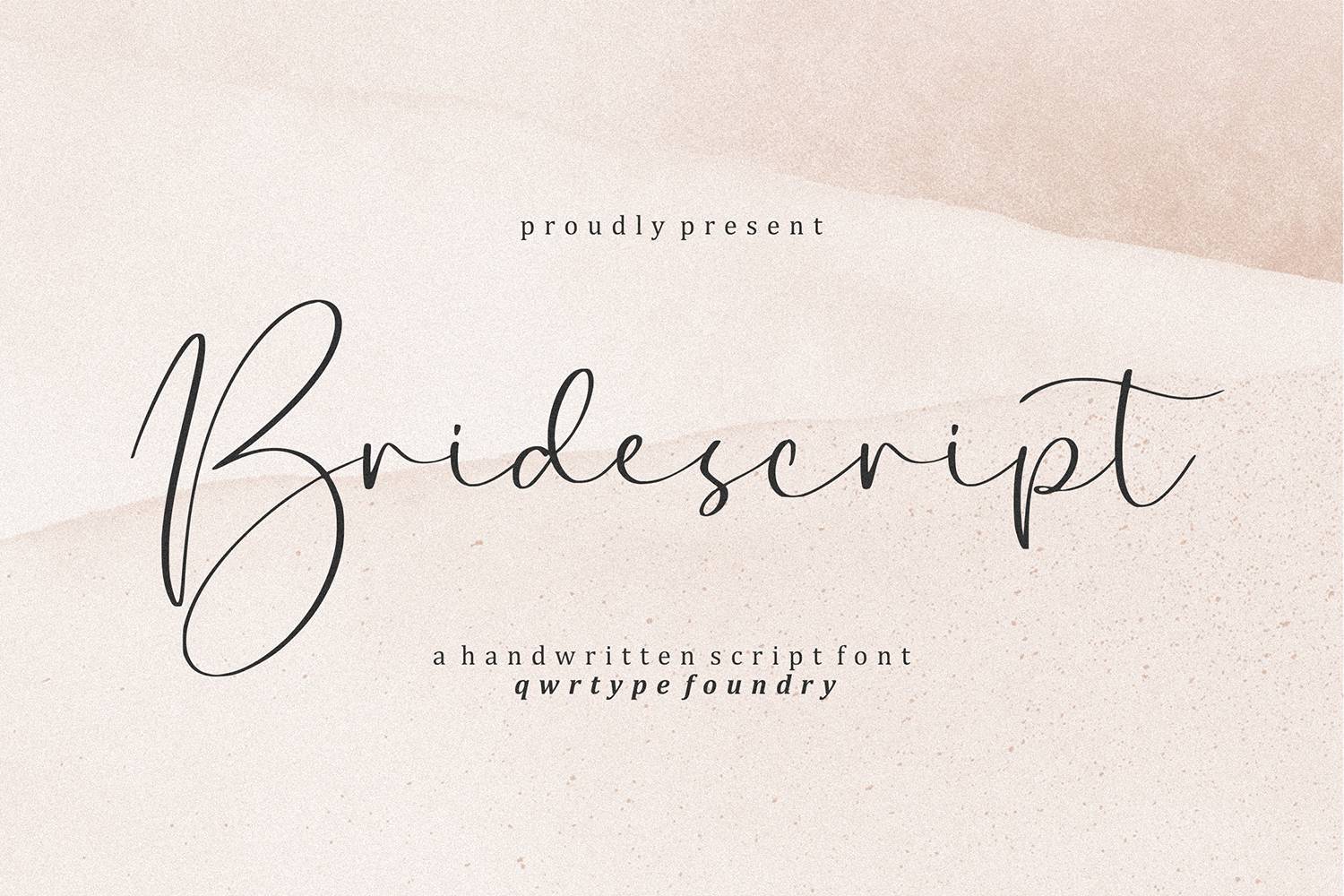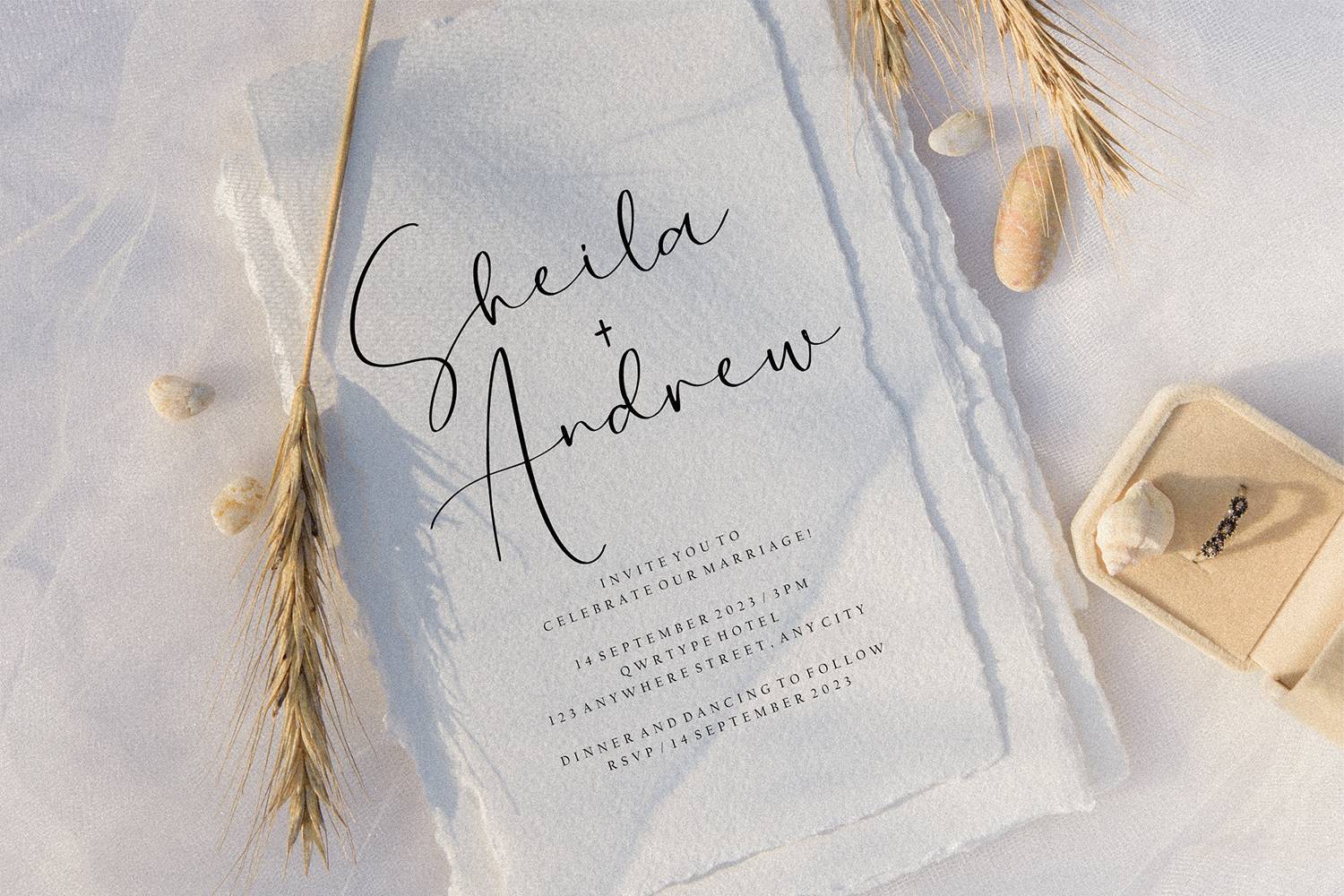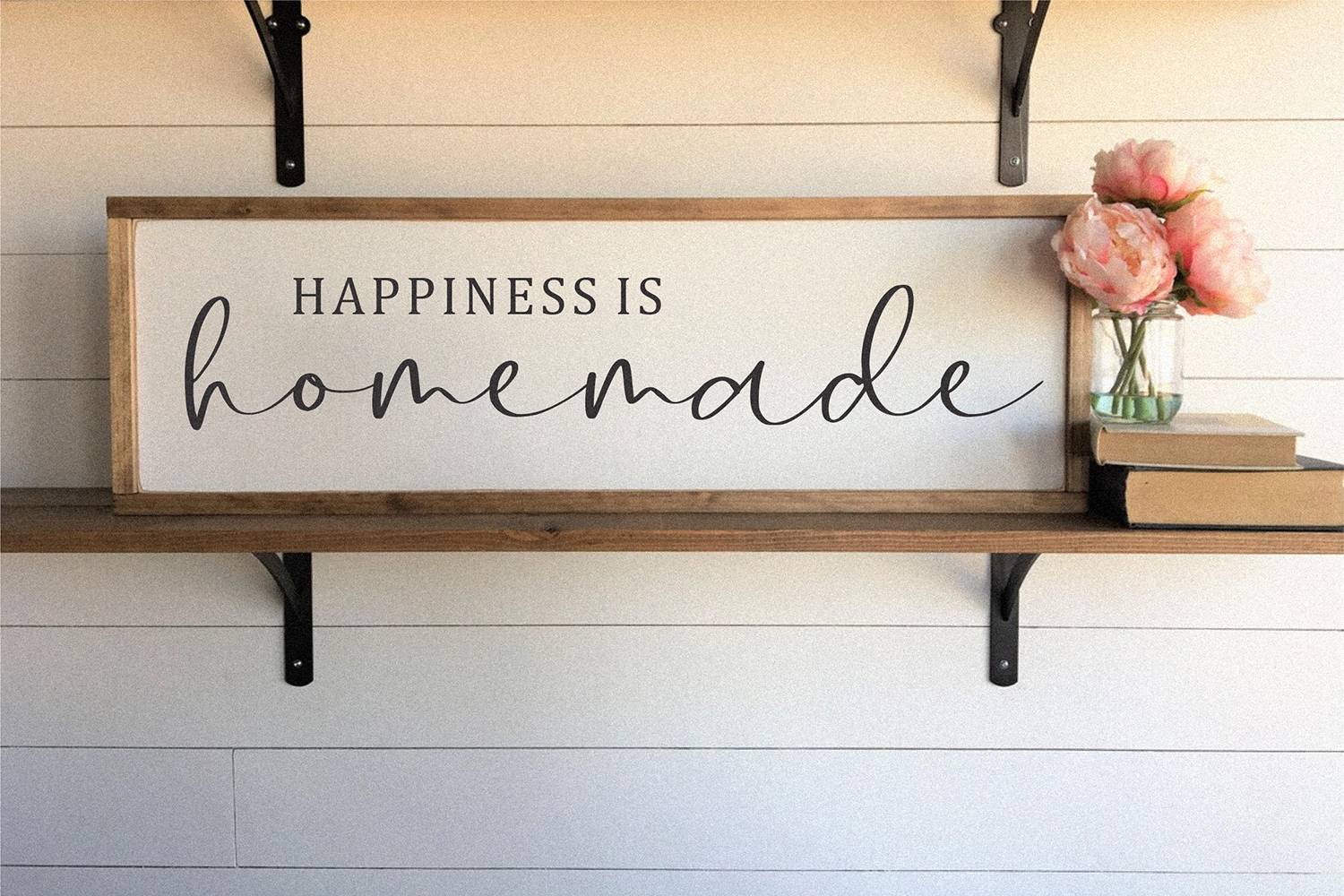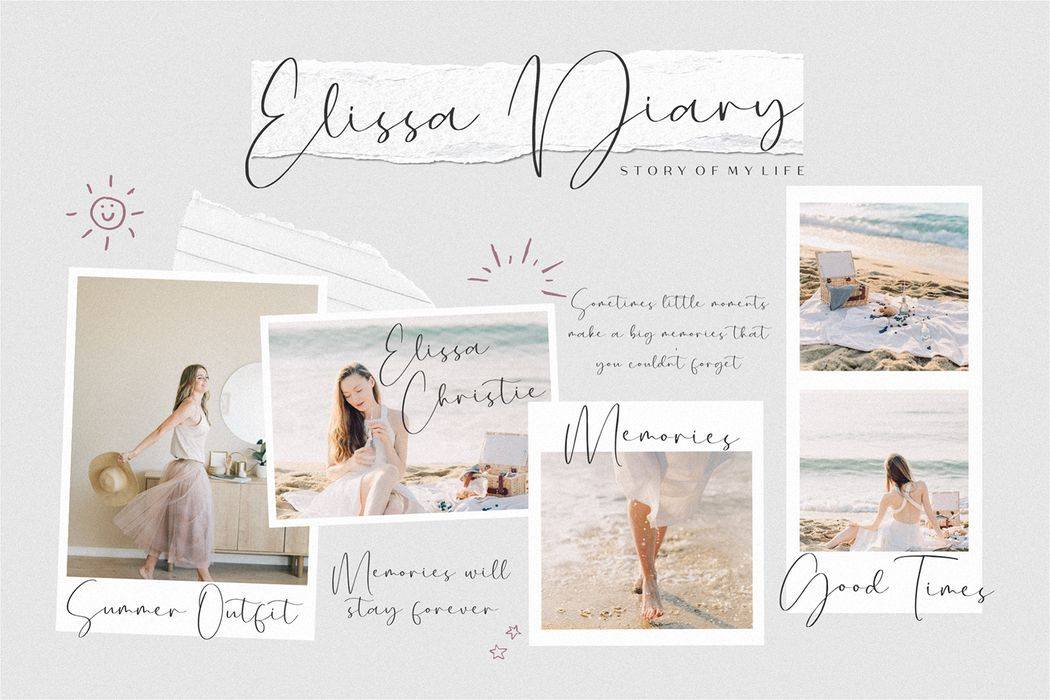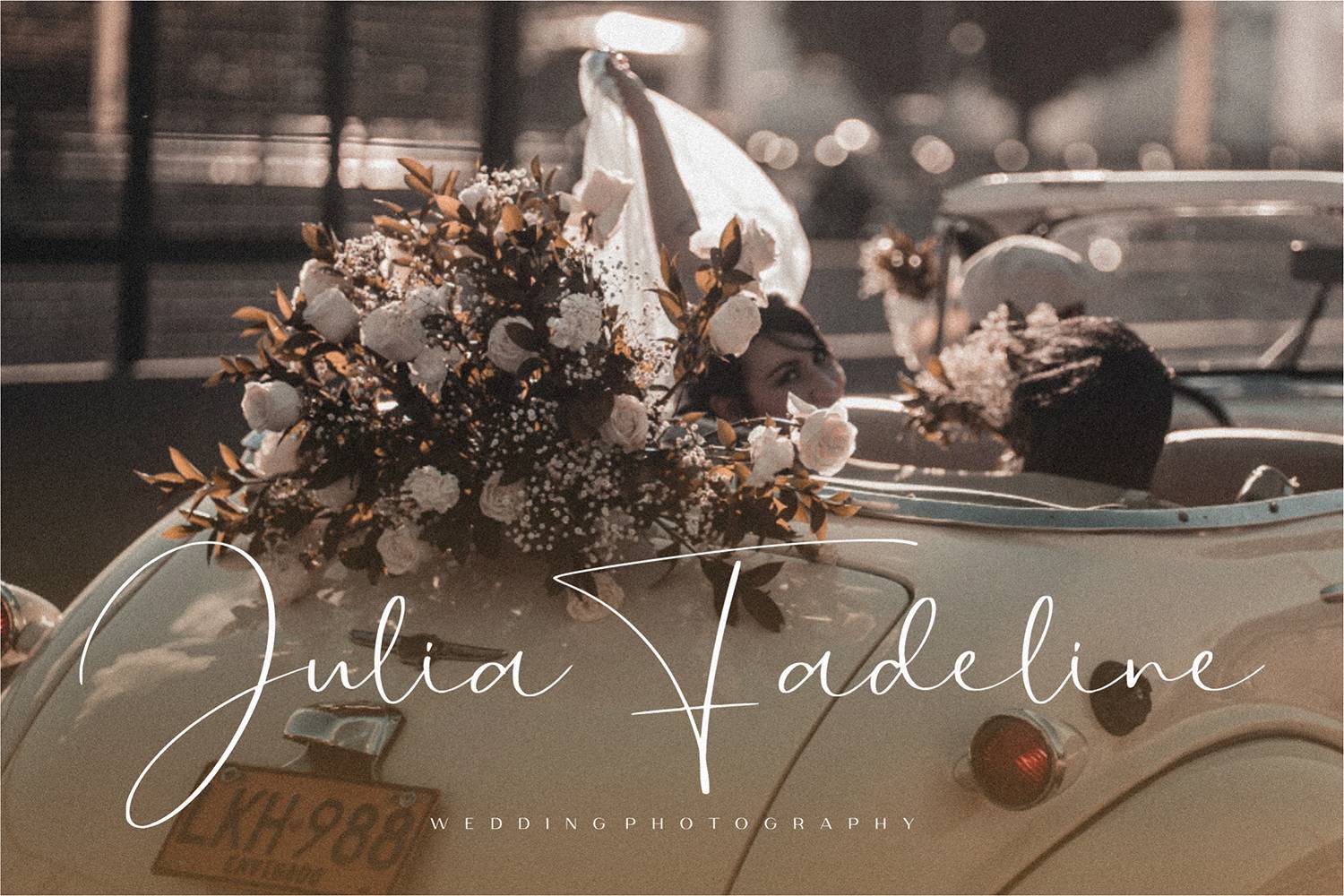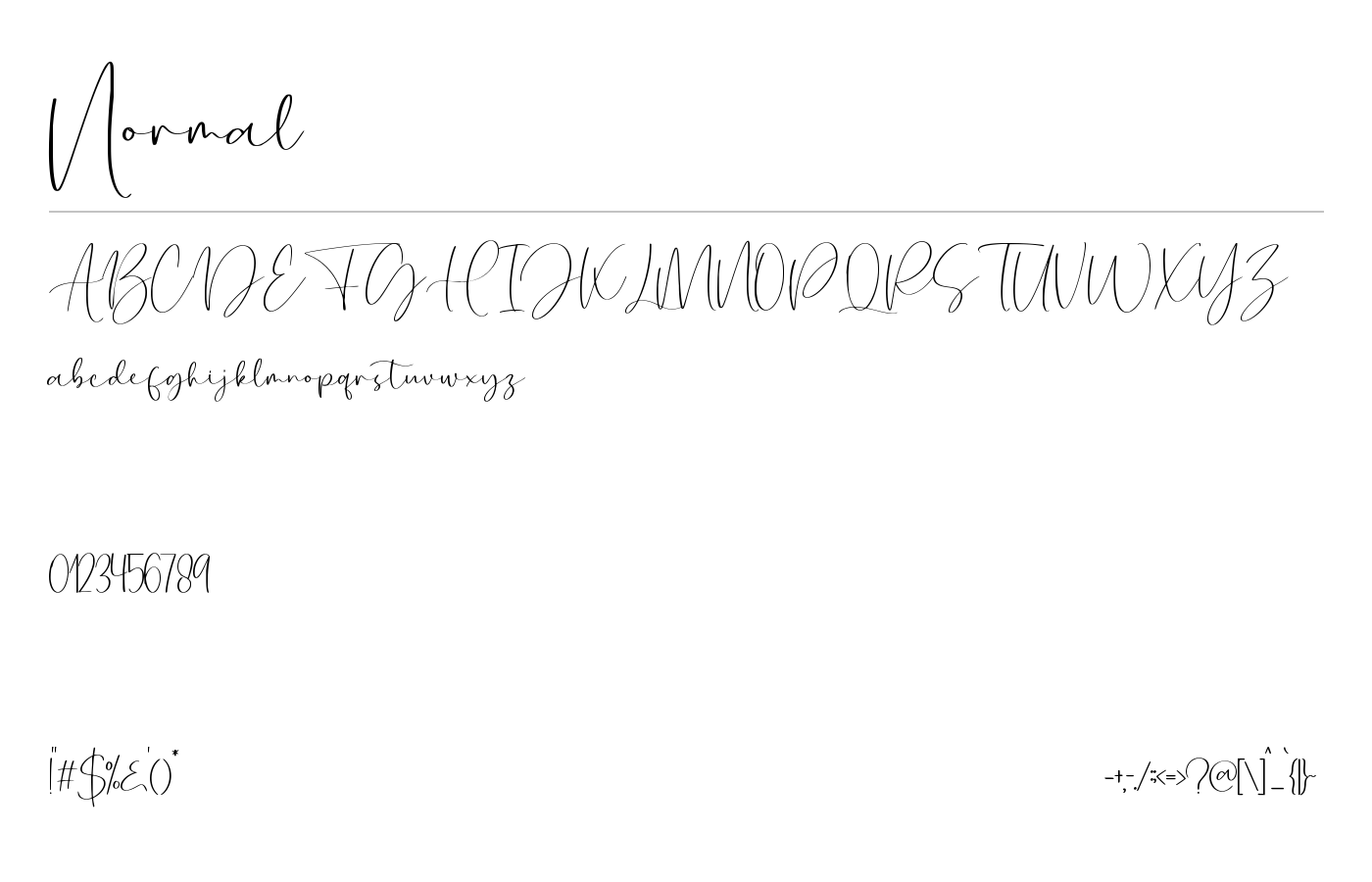
Bridescript is a delicate, elegant script font characterized by its thin, flowing strokes and graceful, handwritten style. Its tall, slender letterforms and light weight create a refined, romantic feel, making it perfect for wedding invitations, luxury branding, and feminine editorial design. This font works beautifully in contexts that require a soft, sophisticated touch with a modern yet personal flair.
Bridescript Font
About Bridescript Font
| Font family | Bridescript Font |